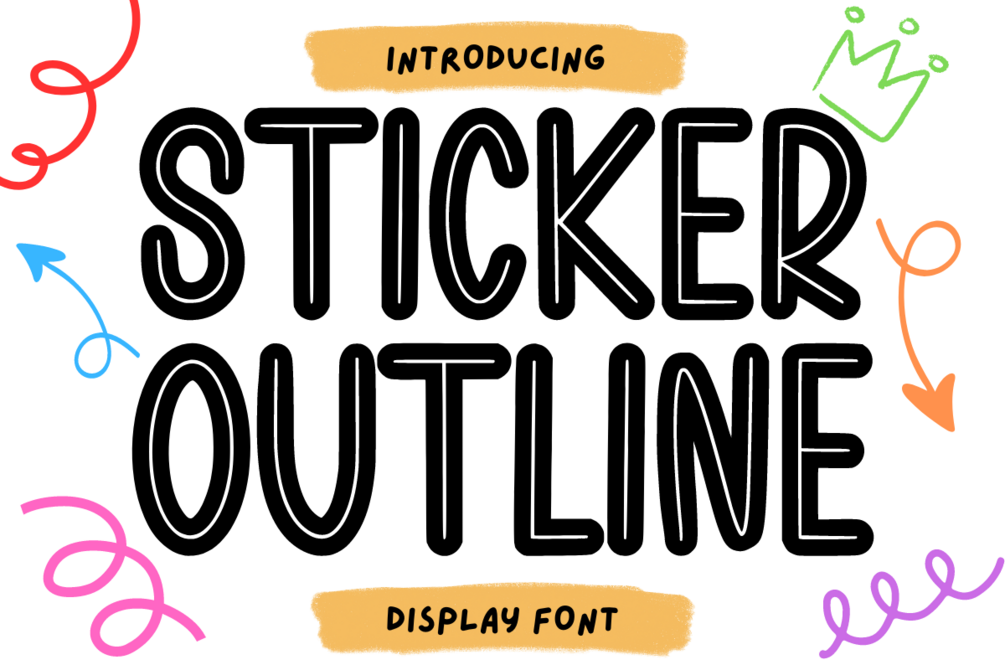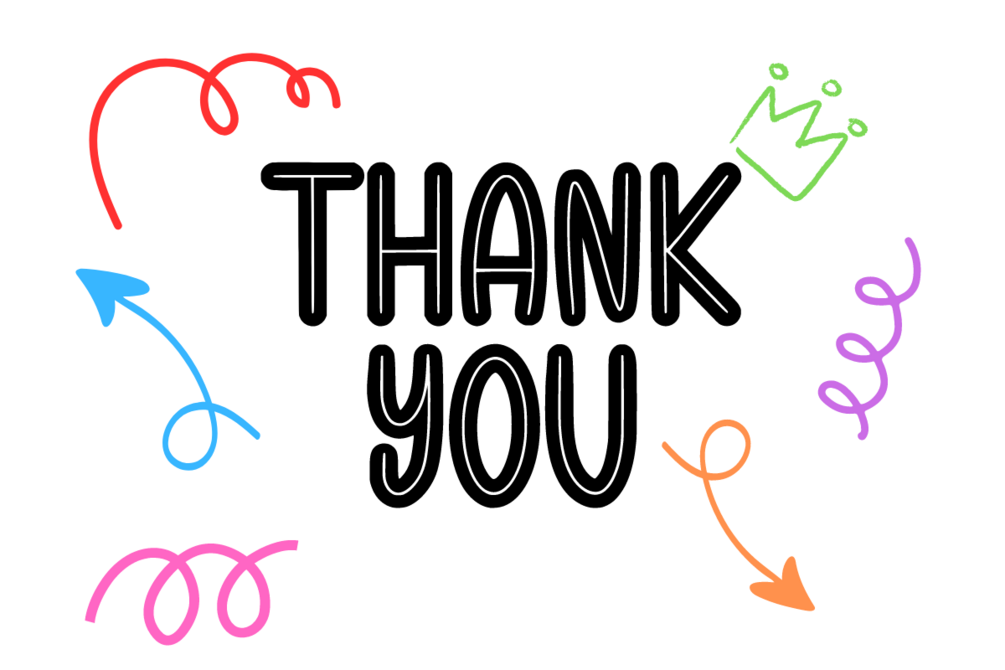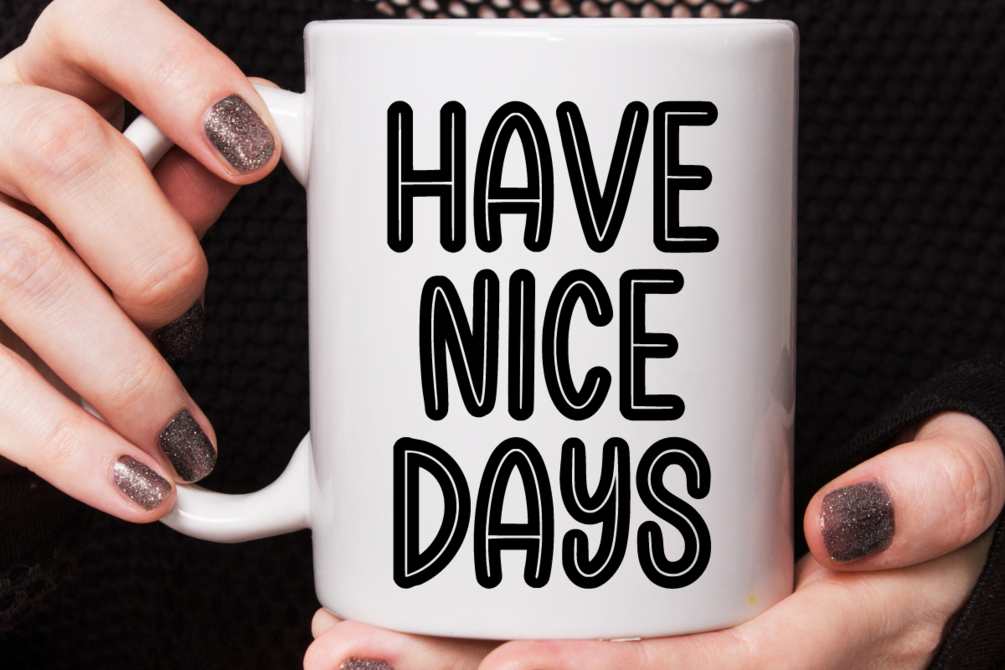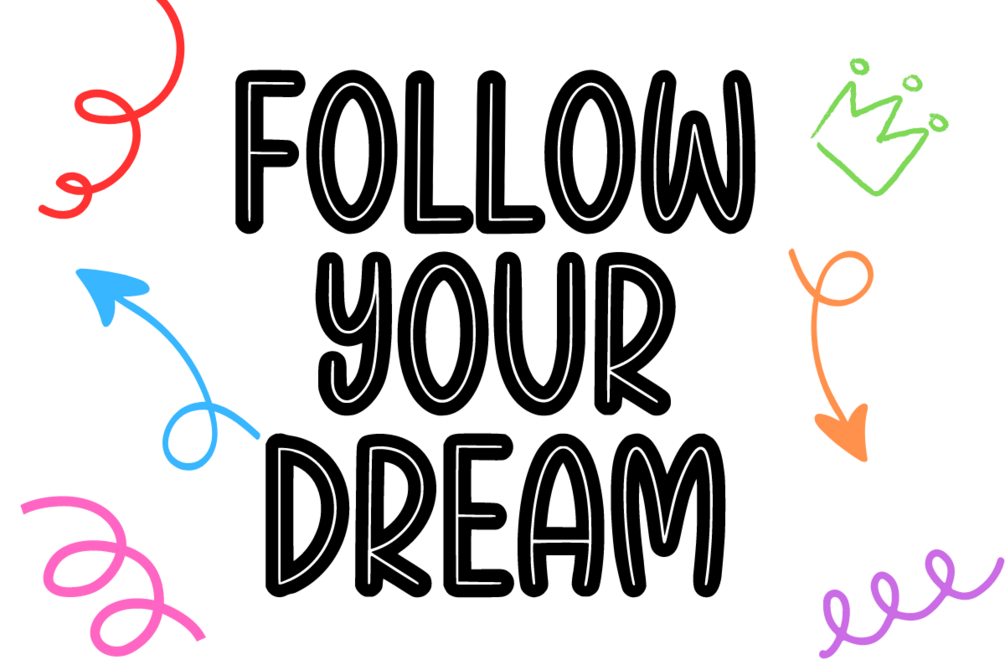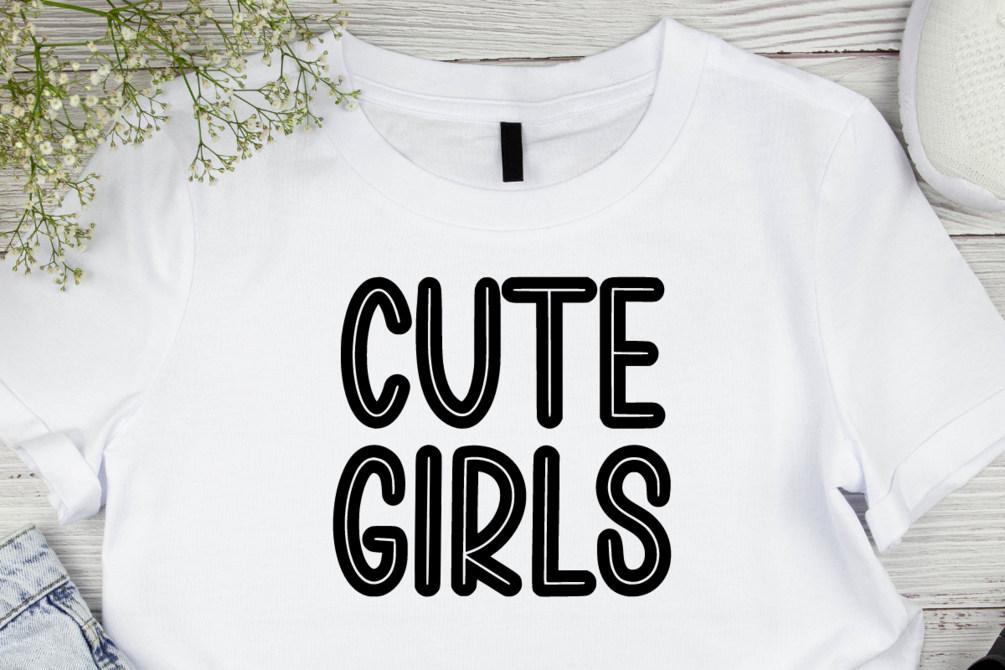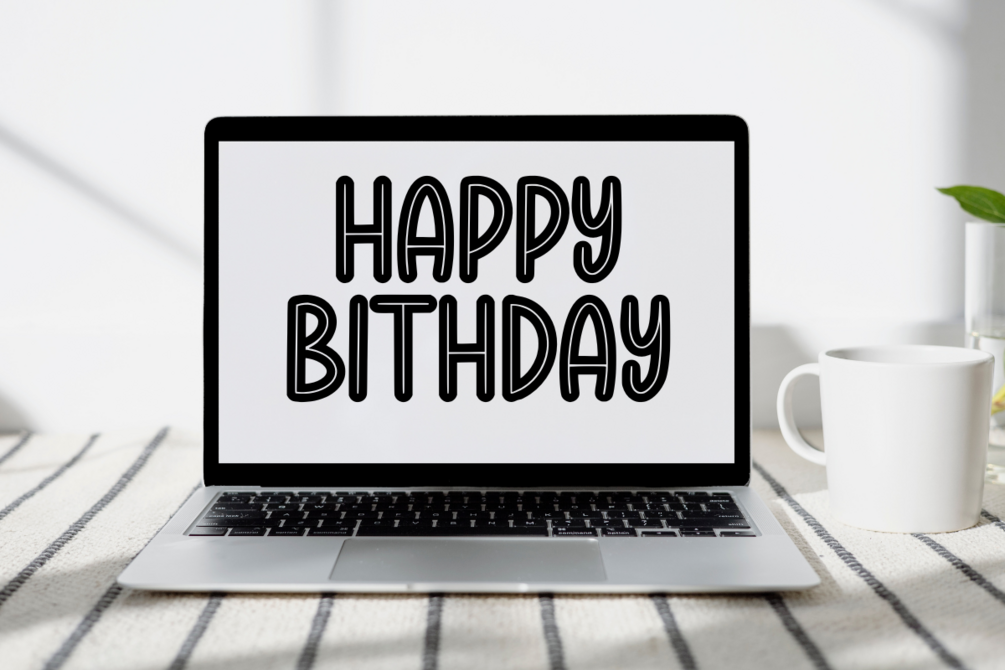
Sticker Outline - Display Font
Sticker Outline is a unique and cool display font. Whatever the topic, this font will be a great asset to your font library, as it has the potential to enhance any creation.